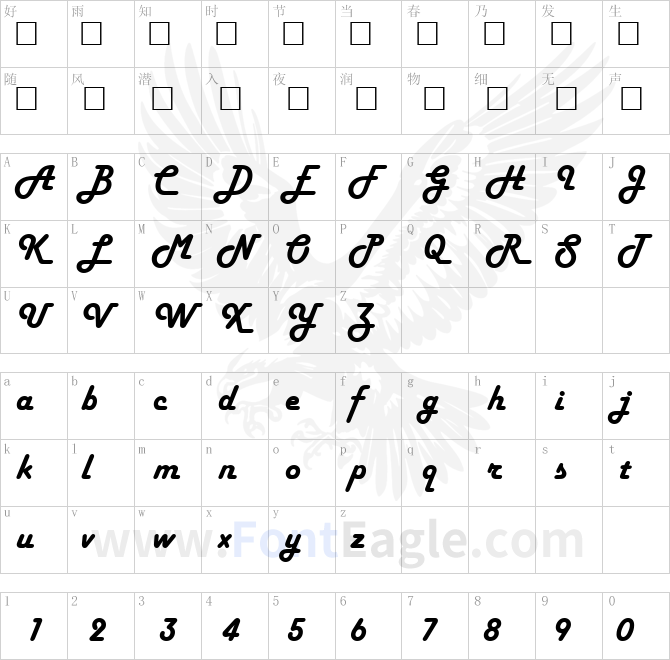
PT-Ragtop is a great font, widely used in graphic design, single-page menu design, poster design and other fields, and is deeply loved by designers.PT-Ragtop download.